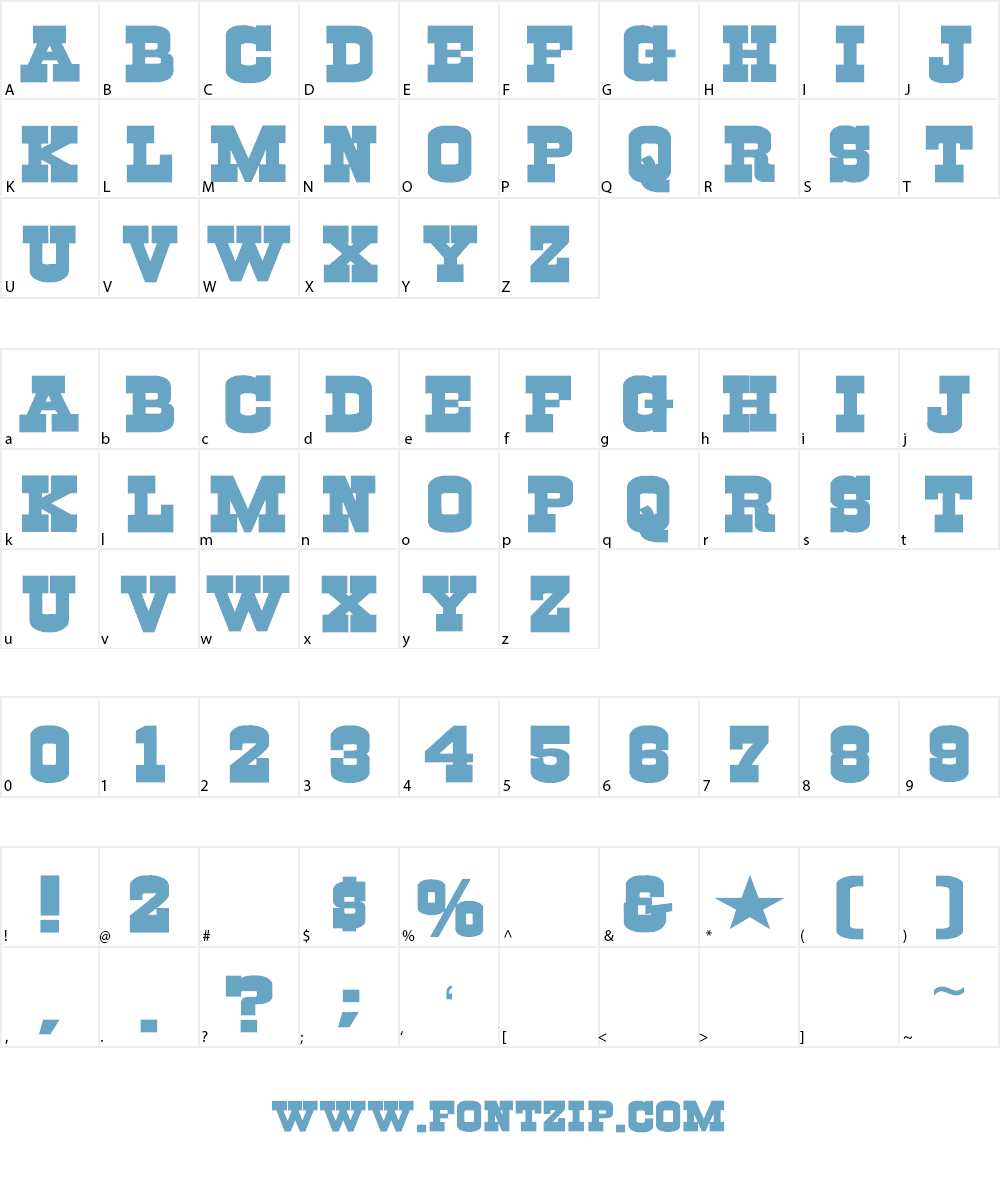
Here you go Cowboy fans. An asterix will get you a big Dallas sized star. This font has been updated in 2.0 to correct minor imperfections and kerning. Feel free